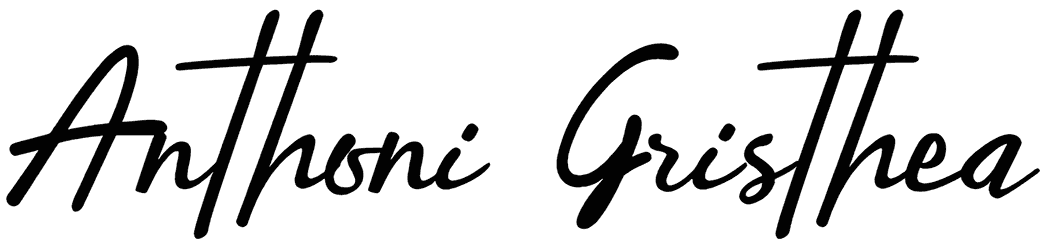
Anthoni Gristhea Font
Anthoni Gristhea font attracts many audiences looking for personal fonts with feminine lines and professionally designed, especially if they are looking for signature fonts and want to use them in official or personal documents. This script font is an excellent and ready assistant that can work well in the design of wedding and birthday invitation cards without having to start from scratch.